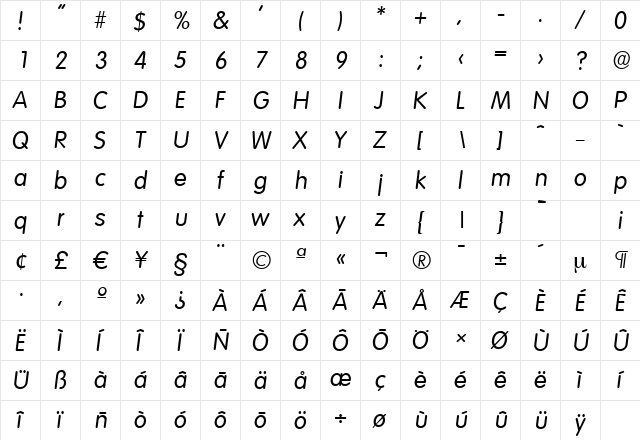
VolkswagenSerial Italic
Design Context for VolkswagenSerial Typeface
VolkswagenSerial takes a measured approach to typography — its balanced proportions and neutral character make it a reliable workhorse for both digital and print work. The dynamic lean of this cut emphasises speed and emphasis in any layout.